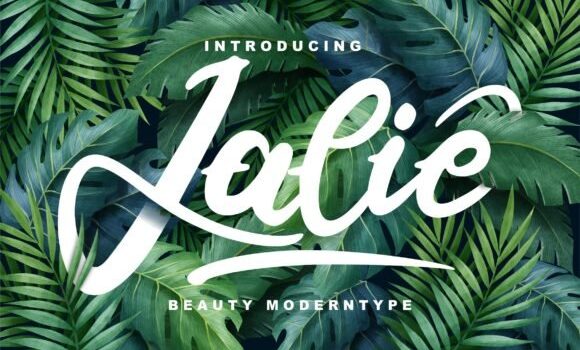
jalie
Jalie Font – Free Download Introduction to Jalie Font Jalie is a beautiful script font. 📸 Preview Gallery 5 images 📌 Product Name Jalie Font 👤 Author Vunira 📂 Category Explore ⬇️ Download Jalie Font FREE Free Download • Instant